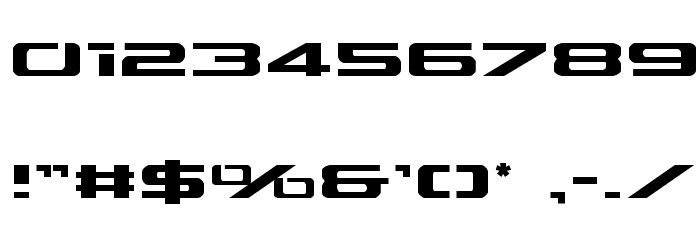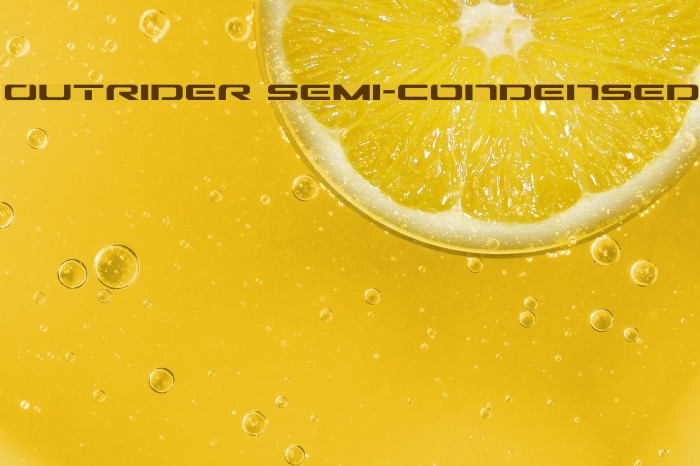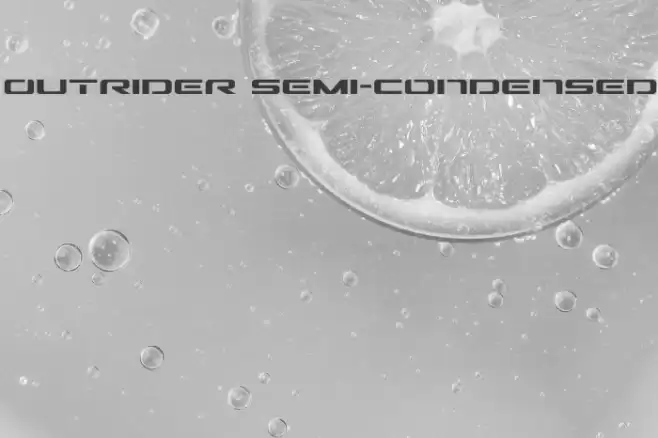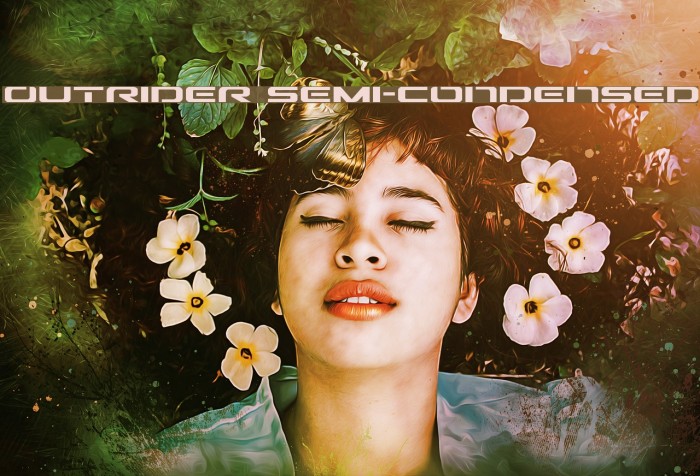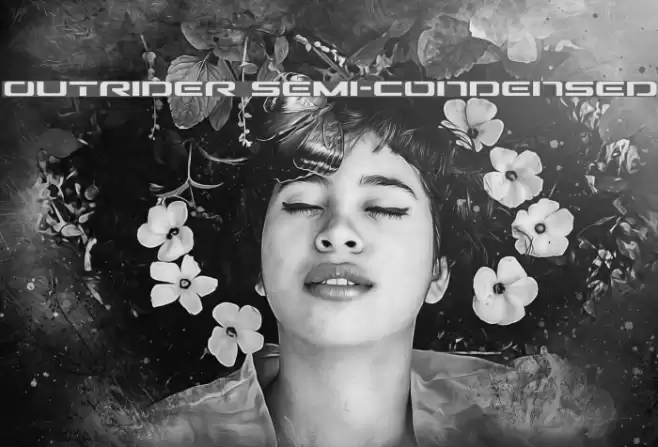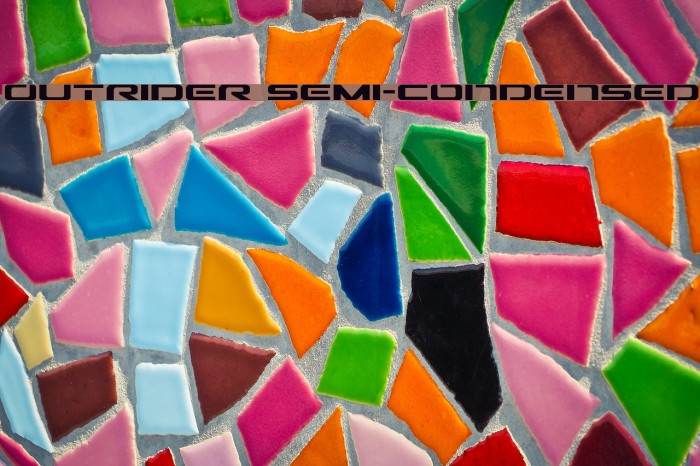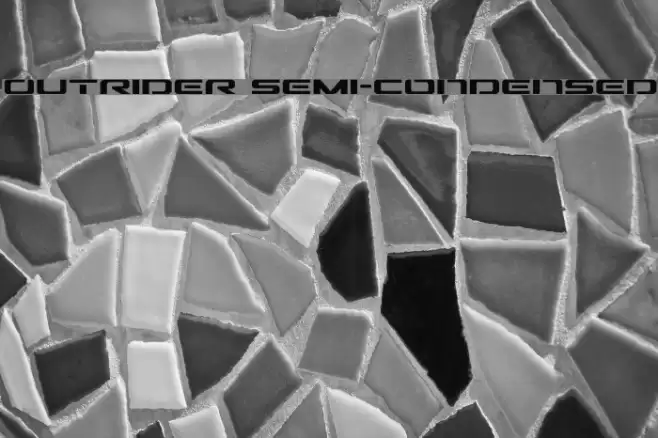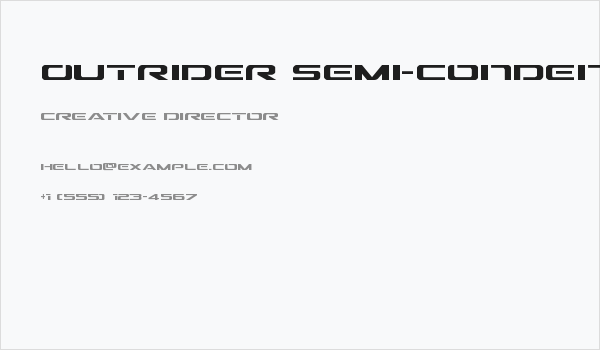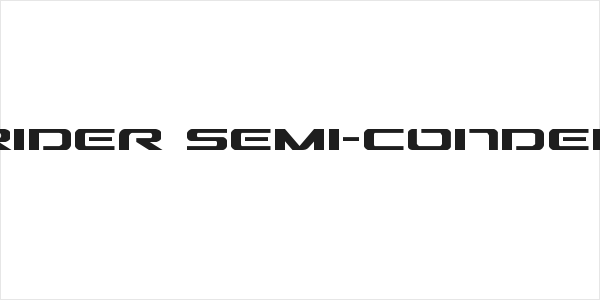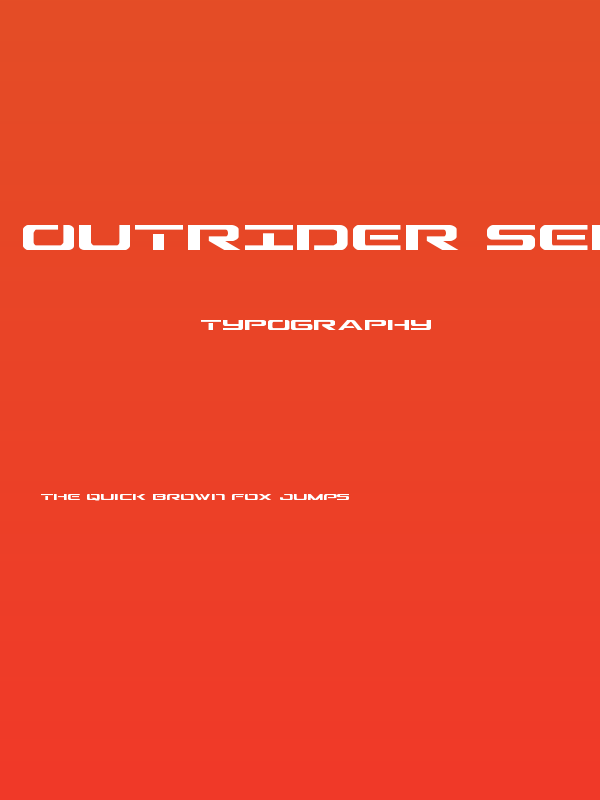
Outrider Semi-Condensed Font
Outrider Semi-Condensed Description
This font features a futuristic and geometric design with semi-condensed letterforms. The characters are bold and angular, with a strong presence that makes them ideal for impactful headlines and logos. The uppercase and lowercase letters maintain a consistent style, with sharp edges and a uniform stroke width. The numerals and special characters are designed to match the overall aesthetic, providing a cohesive look across all elements. The font's modern appeal is enhanced by its clean lines and minimalistic approach, making it suitable for a variety of design projects that require a contemporary and edgy feel.